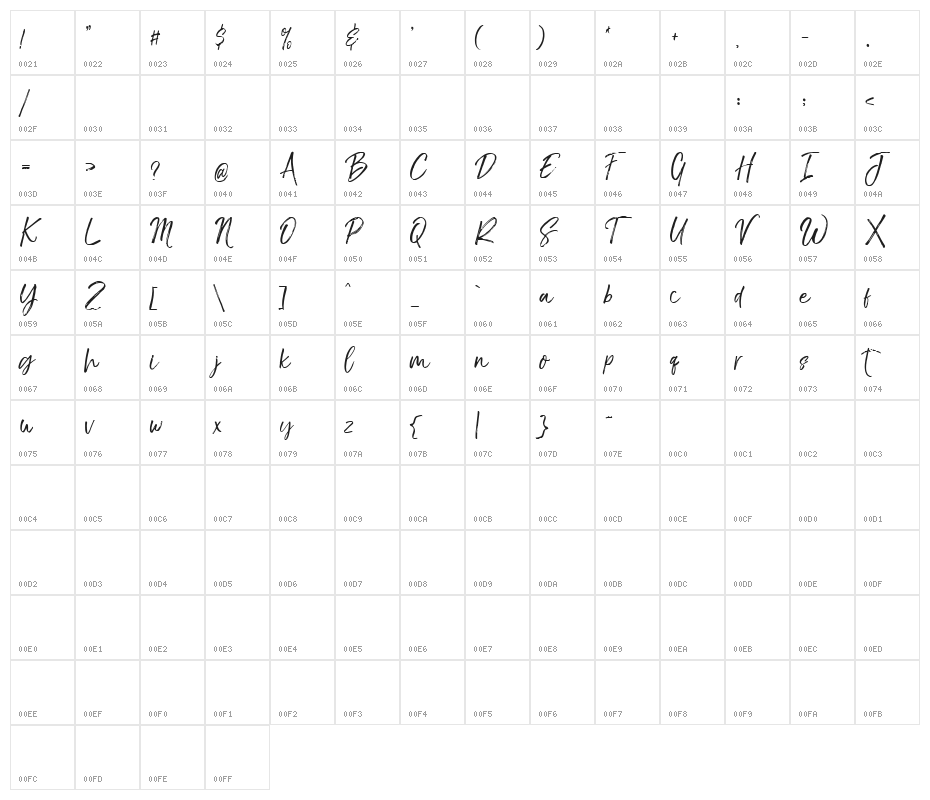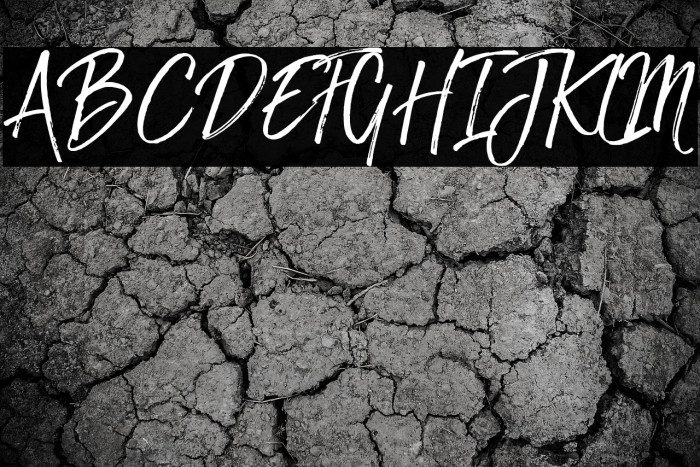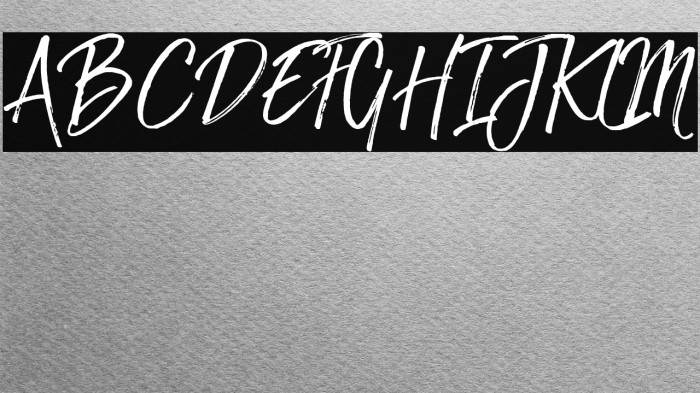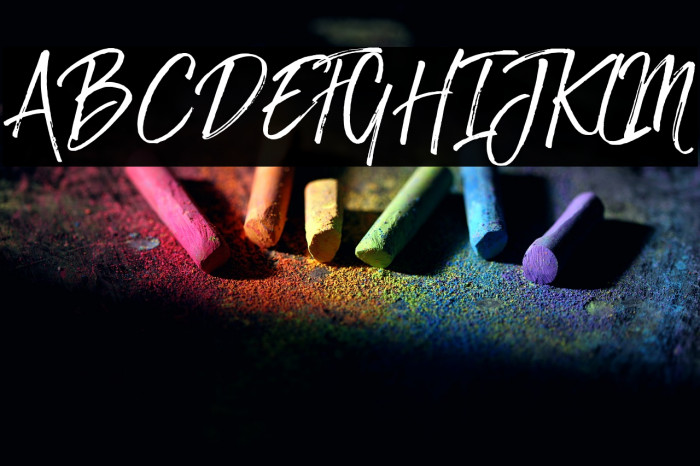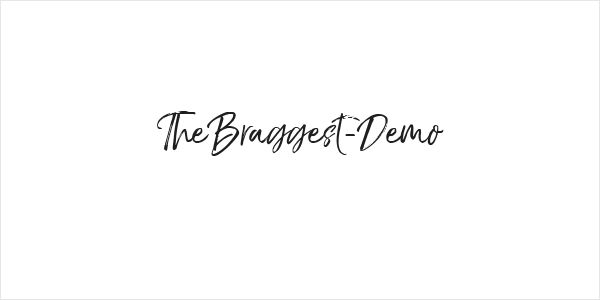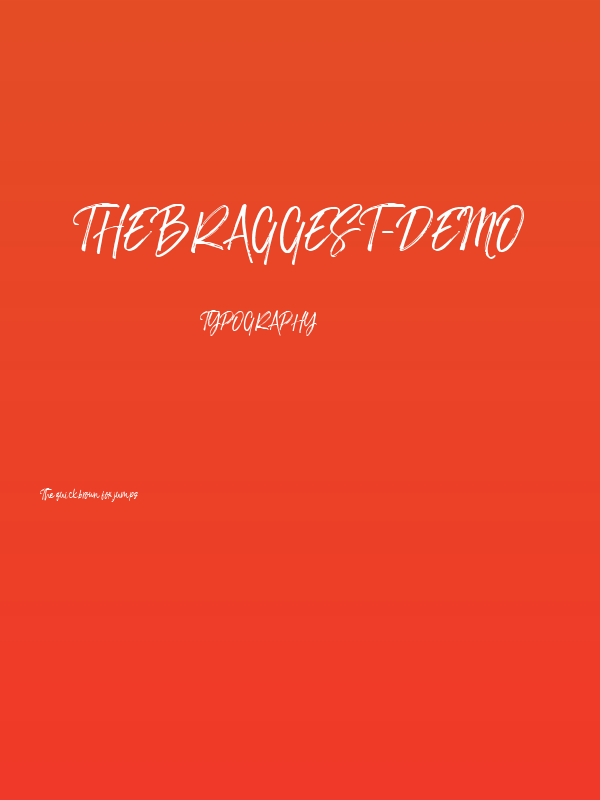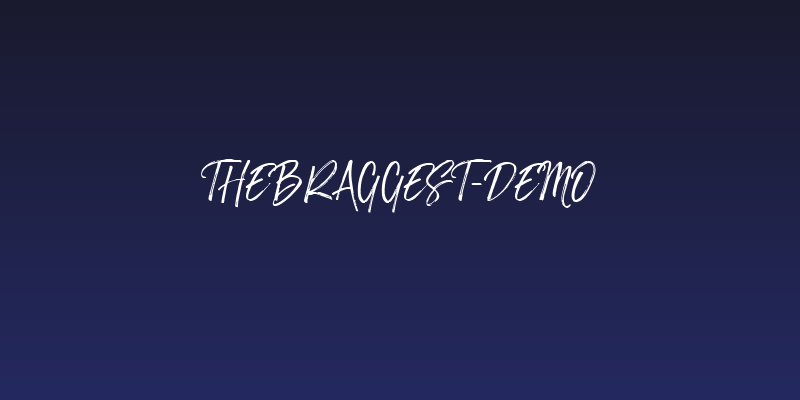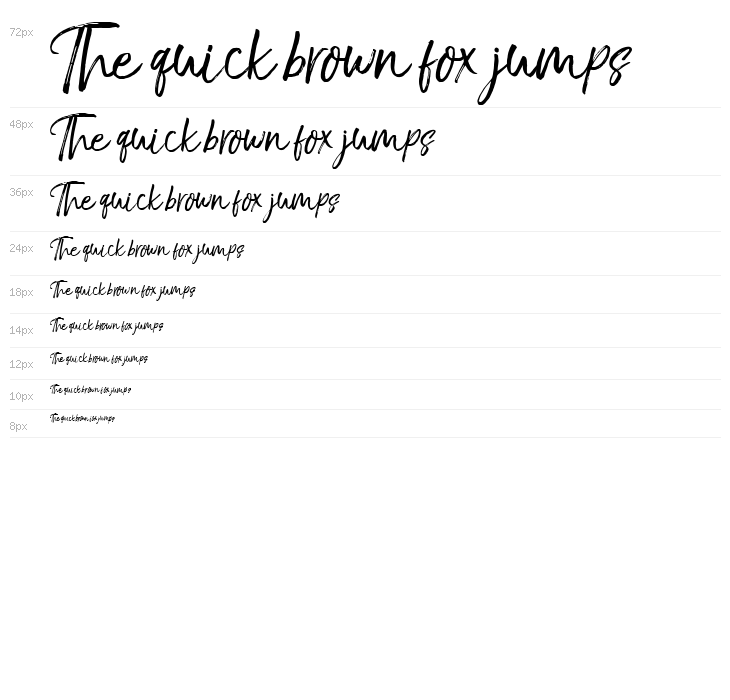
TheBraggest-Demo Font
TheBraggest-Demo Description
This font features a dynamic and expressive handwritten style, characterized by its fluid strokes and artistic flair. The uppercase letters exhibit a bold and energetic presence, with varying stroke widths that add a sense of movement and personality. The lowercase letters maintain a consistent flow, complementing the uppercase with their smooth curves and elegant forms. The numerals and special characters are crafted with the same attention to detail, ensuring a cohesive look across all elements. This font's unique style makes it ideal for projects that require a personal touch or a creative edge.